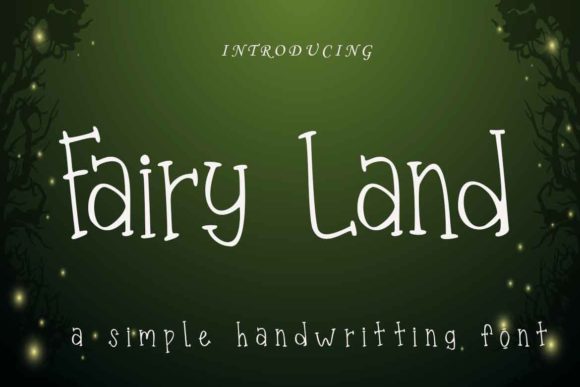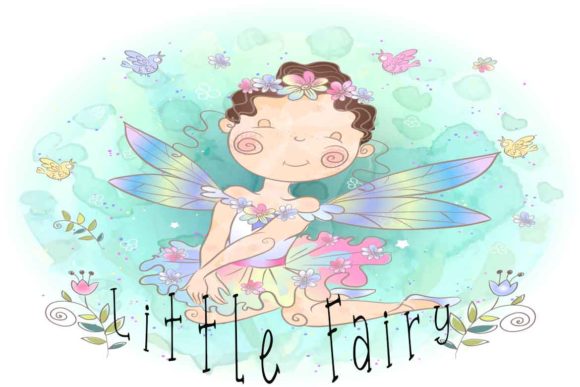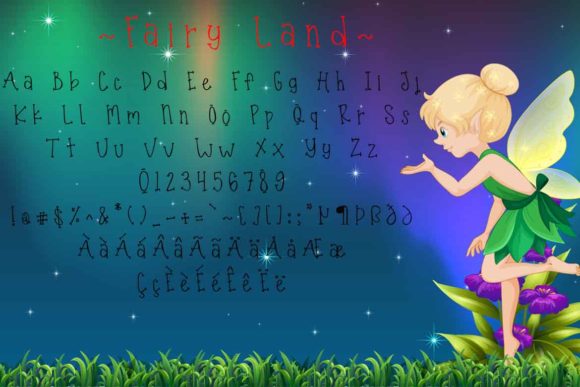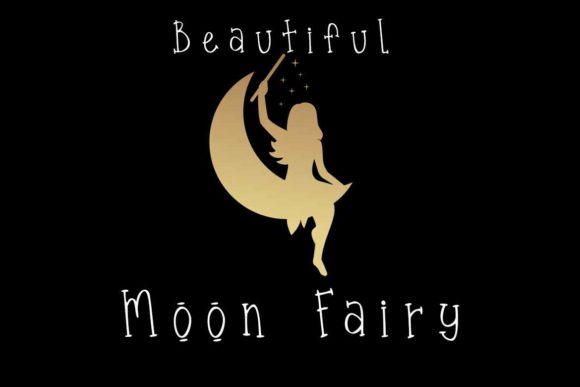
About the Fairy Land Font
Make a bold statement with Fairy Land Font, a powerful and memorable font. Fairy Land is a cute and simple handwritten font. Its natural and unique style makes it incredibly fitting to a large pool of designs. The only limit is your imagination!
Fairy Land’s whimsical charm makes it ideal for projects requiring a touch of playful elegance, such as children’s book illustrations, greeting cards, or branding for artisanal confectioneries. It works exceptionally well in headlines, short quotes, and logos where its handcrafted quality adds visual interest. However, its informal nature makes it unsuitable for large blocks of text or user interfaces demanding high readability.
Consider pairing Fairy Land with a clean sans-serif like Open Sans for a balanced contrast, or a classic serif such as Garamond for a touch of sophistication. For a more playful approach, a geometric sans-serif like Futura can create a striking juxtaposition.
The font’s overall personality is best described as light-hearted and friendly, yet refined enough to maintain a sense of professionalism in appropriate applications. Avoid using it for projects requiring a serious or corporate tone.